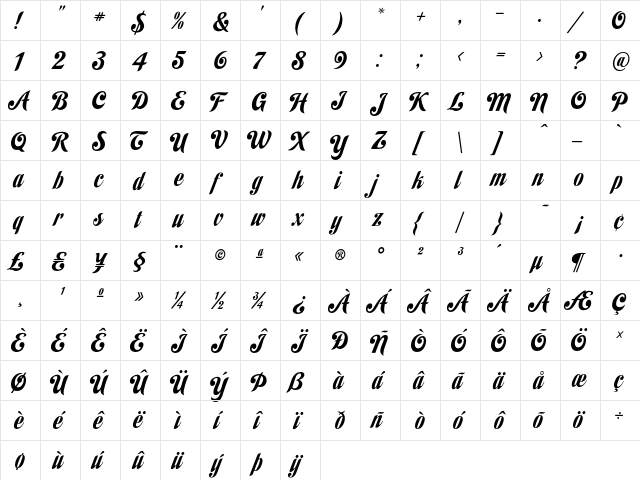
HabanoST Regular
Design Context for HabanoST Typeface
HabanoST is a composed and adaptable typeface that performs quietly and consistently across a wide range of design contexts.